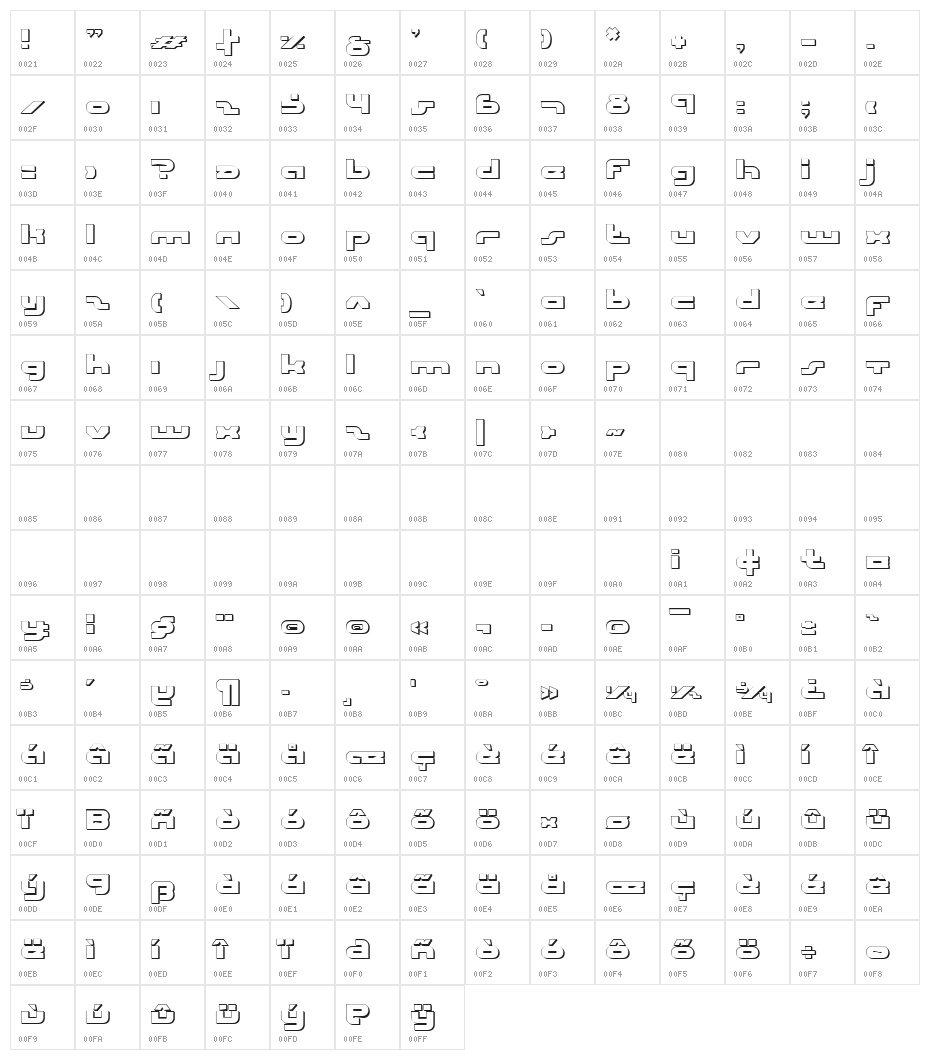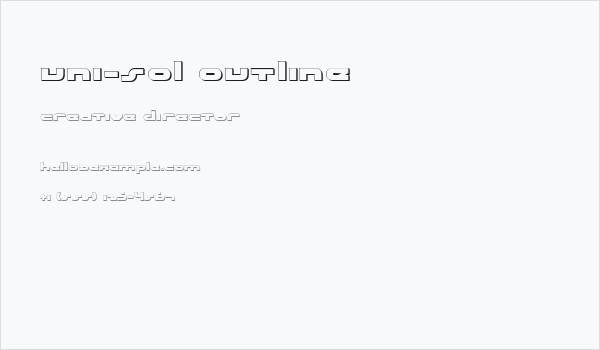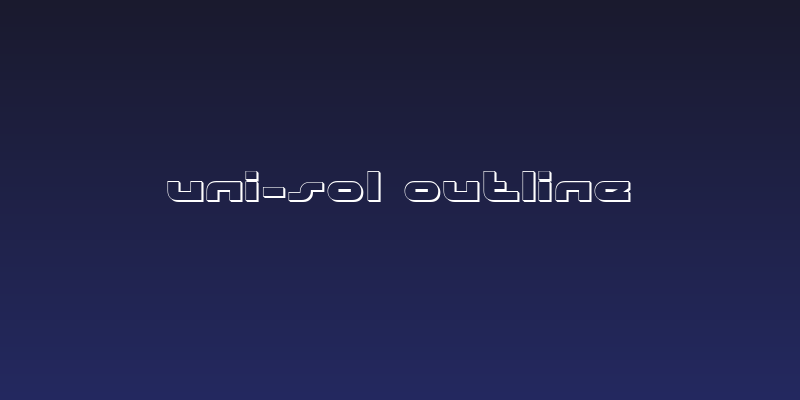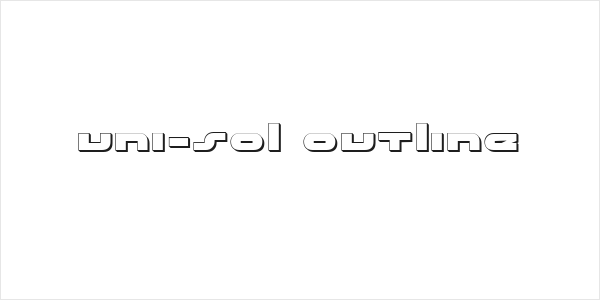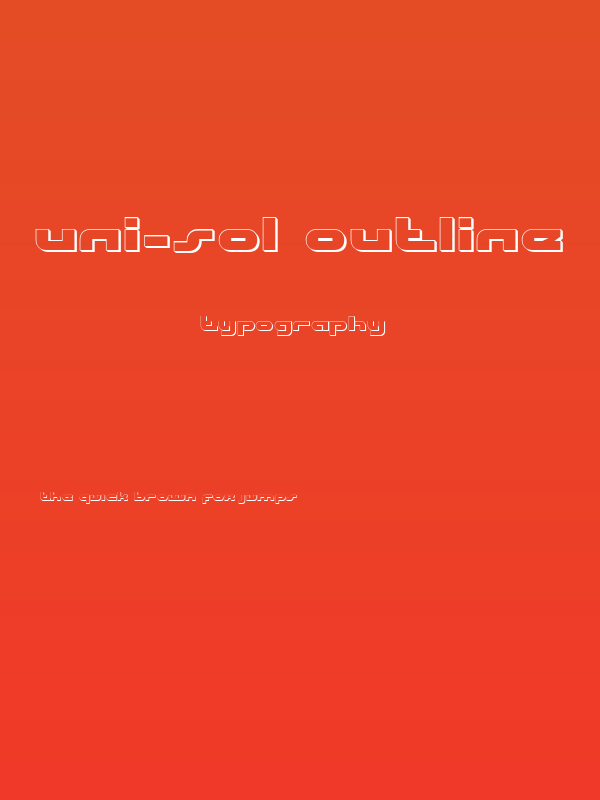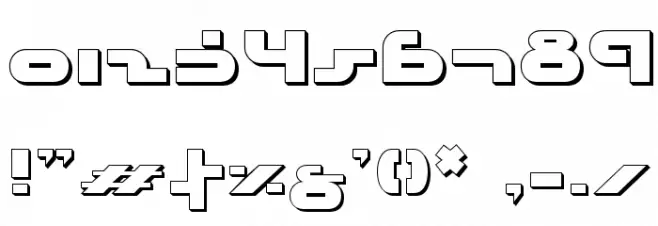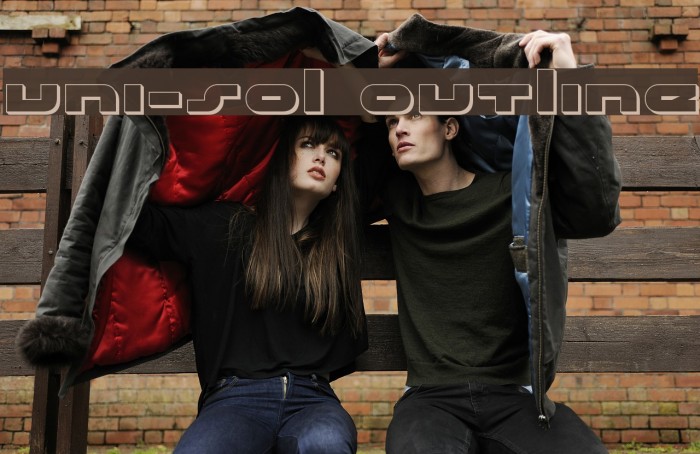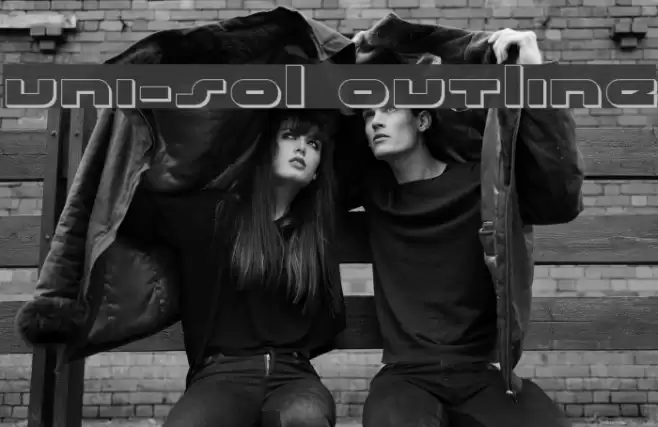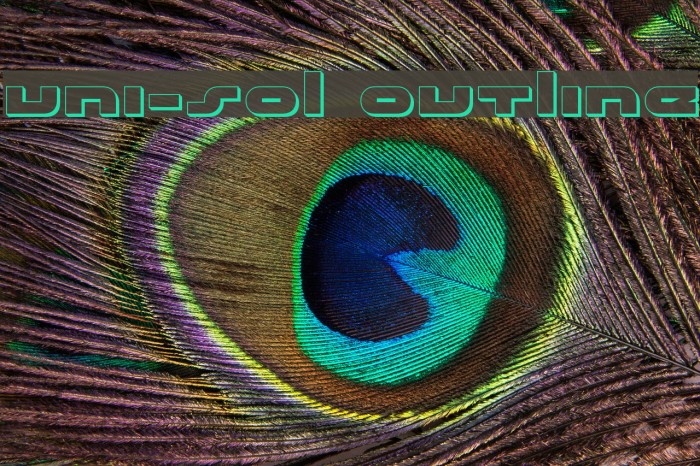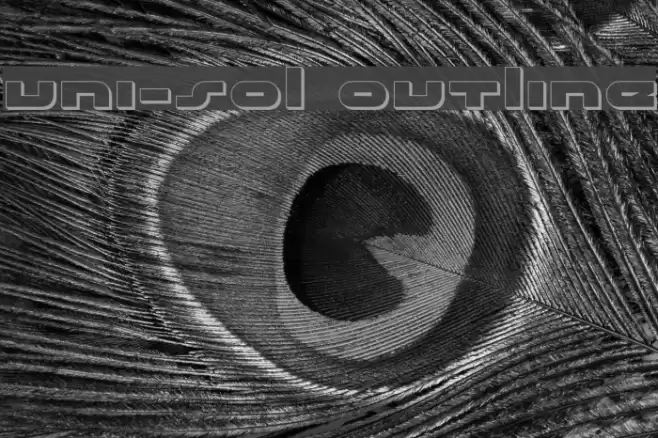
uni-sol outline Font
uni-sol outline Description
This font features a modern, geometric design with a distinct outline style. Each character is crafted with precision, showcasing a futuristic aesthetic that is both bold and eye-catching. The uppercase and lowercase letters maintain a consistent structure, while the numbers and special characters complement the overall design. The font's outline nature gives it a unique, hollow appearance, making it ideal for projects that require a standout visual element. Its clean lines and uniform spacing contribute to its readability, despite its decorative style.
| Use Case | Logos, Headlines, Posters |
| Proposed Projects | Ideal for branding, posters, digital artwork, and any project that requires a modern and distinctive look. |